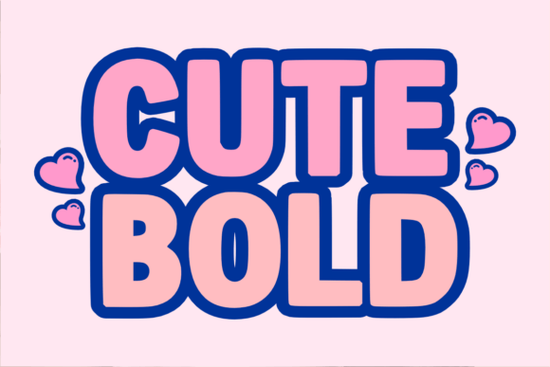
TheCute Bold font is a standout choice for anyone looking to add a friendly, eye-catching vibe to their designs. With its thick, chunky letters and playful baseline, this display typeface brings a hand-lettered feel that feels both modern and approachable. Whether you're working on t-shirt graphics, social media visuals, or youth-oriented branding, TheCute Bold font offers a unique way to make your work pop.
This font works especially well when paired with bold color schemes and whimsical illustrations. Its heavy weight makes it ideal for 3D effects, multi-color outlines, and creative layering. Designers who want to convey warmth and energy in their projects will find this font to be a versatile tool. It’s perfect for brands targeting younger audiences or those looking to create a more personal, heartfelt visual identity.
What Makes TheCute Bold Font Unique?
TheCute Bold font stands out due to its irregular baseline and thick letterforms. Unlike traditional fonts, which follow a straight line, this one has a slightly uneven look that mimics hand-drawn typography. This gives your text a more organic, handmade feel, which can be very effective for creating a sense of authenticity and charm.
Its design is also highly adaptable. You can use it for headings, logos, or even as a main body text in certain contexts. The font’s structure allows for easy customization, making it a great option for designers who want to experiment with different styles and layouts.
Best Uses for TheCute Bold Font
This font is particularly well-suited for projects that require a friendly and energetic tone. For example, it works well for:
- T-shirt designs that aim to express positivity and fun
- Social media stickers and banners with a youthful appeal
- Youth branding, such as for schools, camps, or kids’ products
- Marketing materials that need a warm, inviting look
It's also a good fit for print-on-demand sellers who want to offer unique, visually engaging products. The font’s boldness ensures that it remains readable even at smaller sizes, while its playful nature adds character to any design.
How to Use TheCute Bold Font Effectively
To get the most out of TheCute Bold font, consider pairing it with complementary elements. Bright, high-contrast colors can help highlight the font’s thickness and make your message stand out. Adding illustrations like hearts, stars, or other playful icons can enhance the overall aesthetic and reinforce the font’s friendly vibe.
When using this font in digital formats, keep in mind that it may not be the best choice for long paragraphs. It’s most effective when used sparingly, such as in headlines, titles, or short phrases. This helps maintain readability while still delivering the font’s signature personality.
If you're new to using display fonts, start by experimenting with small projects. Try applying TheCute Bold font to a simple logo or social media post to see how it looks in action. As you become more comfortable, you can incorporate it into larger design projects with confidence.
Remember, the key to using this font effectively is to balance its boldness with other design elements. Pair it with clean backgrounds, contrasting colors, and thoughtful layout choices to ensure it enhances, rather than overwhelms, your overall design.
By using TheCute Bold font thoughtfully, you can create designs that are both visually striking and emotionally engaging. Whether you're a designer, crafter, or small business owner, this font offers a powerful way to express creativity and connect with your audience.